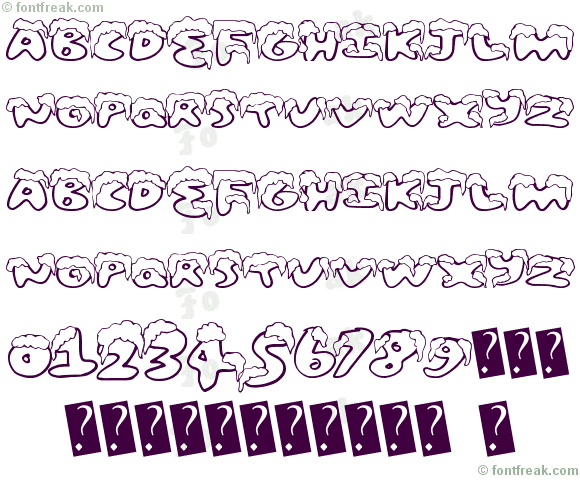
SnowFrosting
SnowFrosting by Xerographer Fonts is a distinctive display typeface that captures the whimsical essence of winter with its playful design. This font features rounded, bubbly letterforms adorned with a delightful frosty motif, making it an eye-catching choice for various creative projects. The stroke weight is consistent, contributing to a uniform visual appeal, while the contrast is minimal, enhancing legibility without sacrificing style. The spacing between characters is well-balanced, allowing for seamless readability, even in larger applications.
SnowFrosting is particularly suited for festive occasions and seasonal themes. It shines in use cases such as holiday greeting cards, where its frosty appearance evokes a sense of warmth and cheer. Additionally, it works beautifully on winter-themed event flyers, drawing attention with its unique character. Restaurant menus featuring seasonal specialties can benefit from the font's playful style, making dishes sound even more appealing. It can also be used for children’s party invitations, adding a fun and enchanting touch. Graphic designers, small business owners, and content creators will find SnowFrosting to be an invaluable asset in their typographic toolkit.
What sets the SnowFrosting font apart is its ability to blend fun and functionality. It captures the spirit of winter while maintaining a level of professionalism that makes it versatile for various applications. The combination of its unique visual style and its freeware license makes this font an attractive option for anyone looking to add a touch of whimsy to their projects. Don’t miss out on the opportunity to enhance your designs—SnowFrosting font free download is available, inviting you to explore its charming potential in your next creative endeavor.